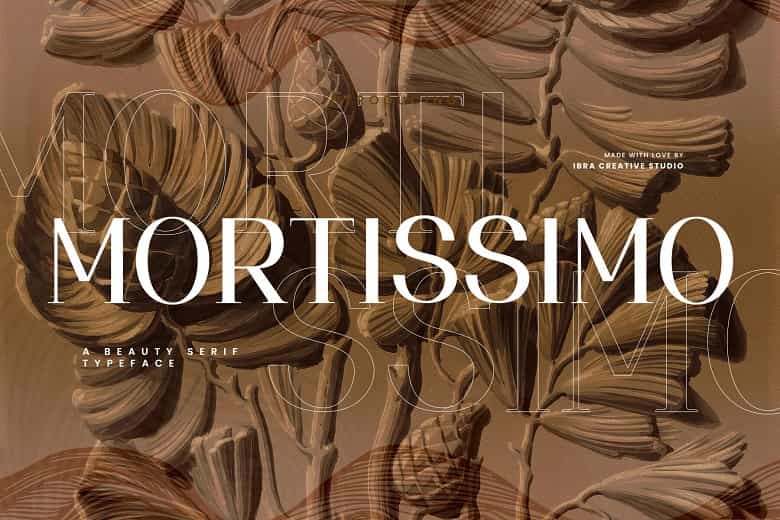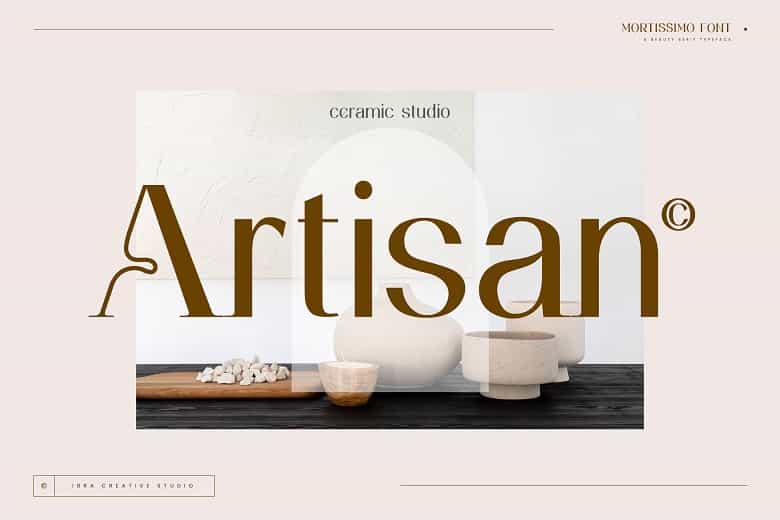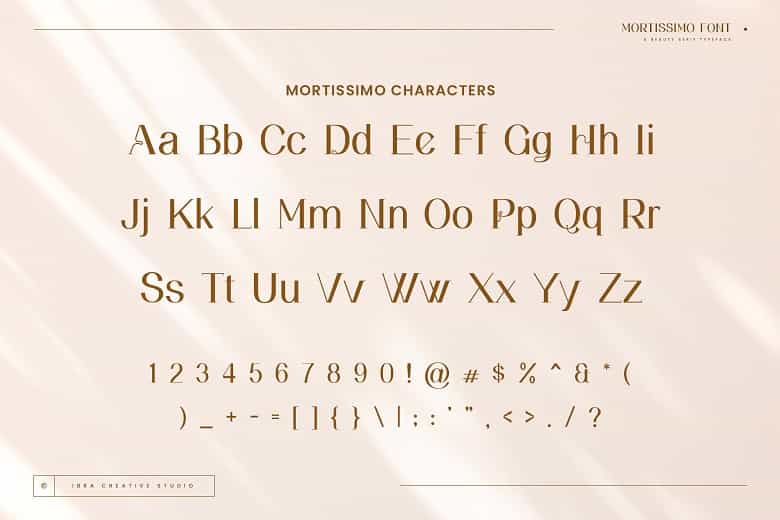
Mortissimo is a beauty serif font that is very elegant and timeless that adds a charm of its own to any design. Featuring elegant, stretched out serifs and delicate shapes of characters, Mortissimo is a perfect example of a typeface that successfully meets the traditions of the past and the requirements of the present.